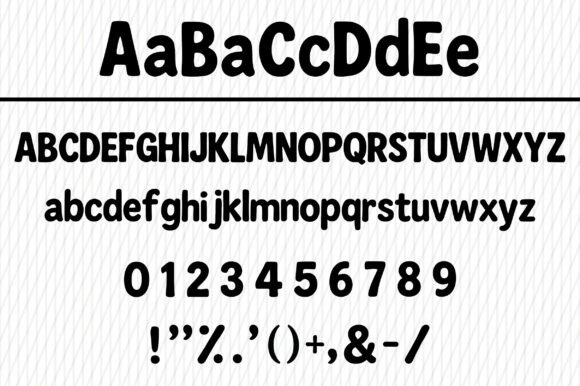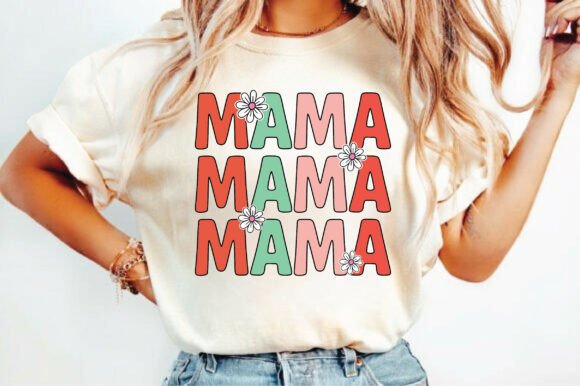
Introduction to Glowy Font
Glowy is a fun, rounded retro display font with a cheerful vintage touch.
Its bold letters and smooth curves make it perfect for eye-catching titles, logos, T-shirts, and posters Add a playful, nostalgic vibe to your designs and make your text shine with Glowy.